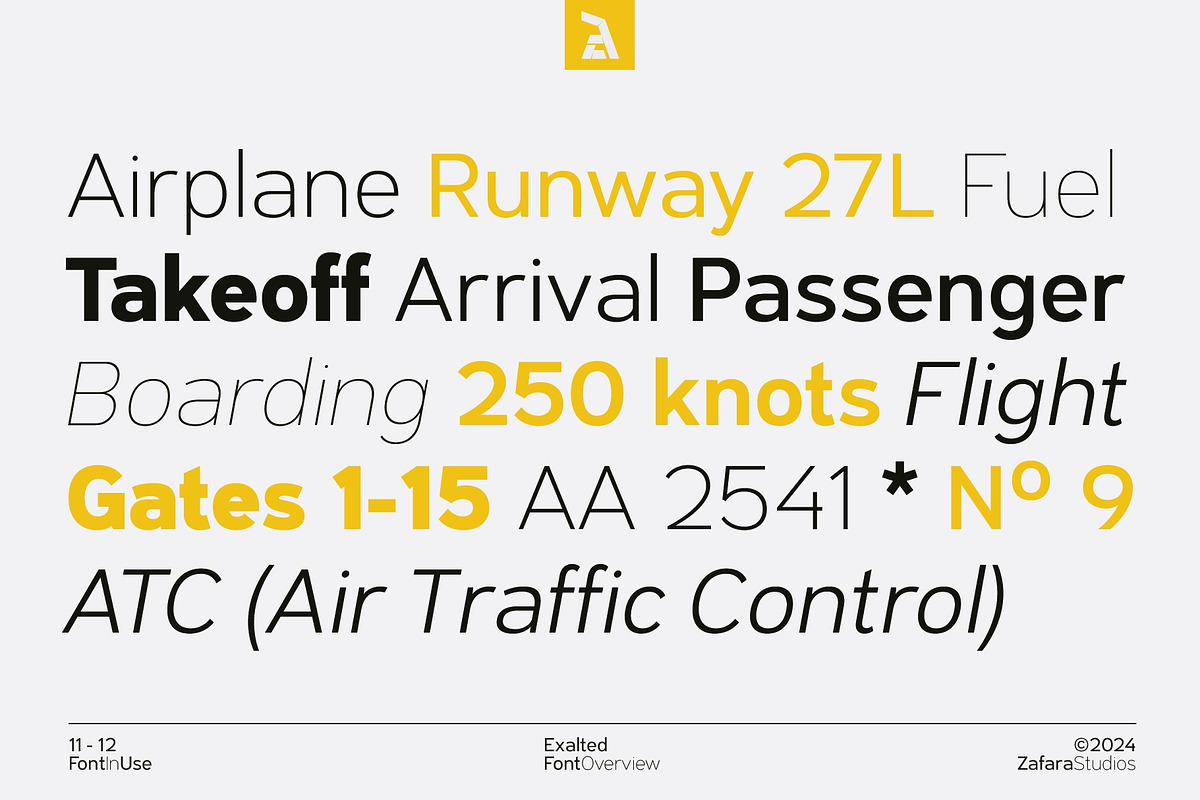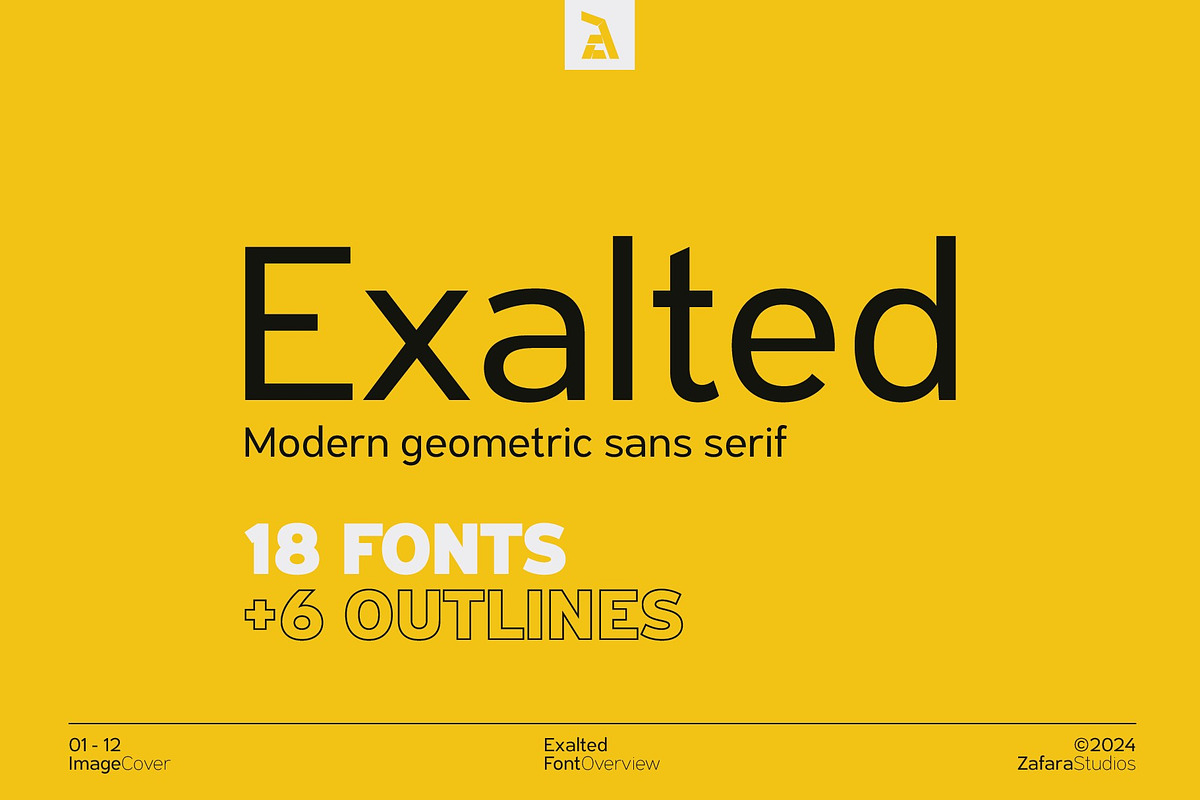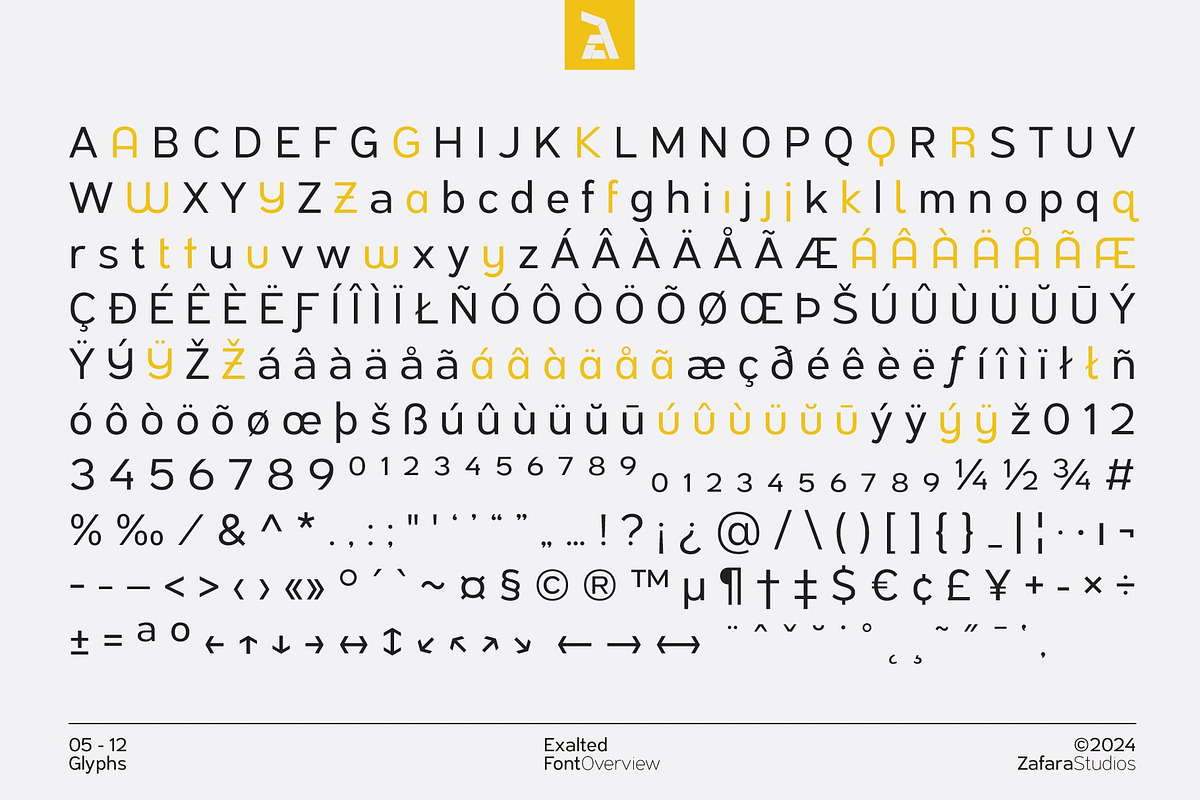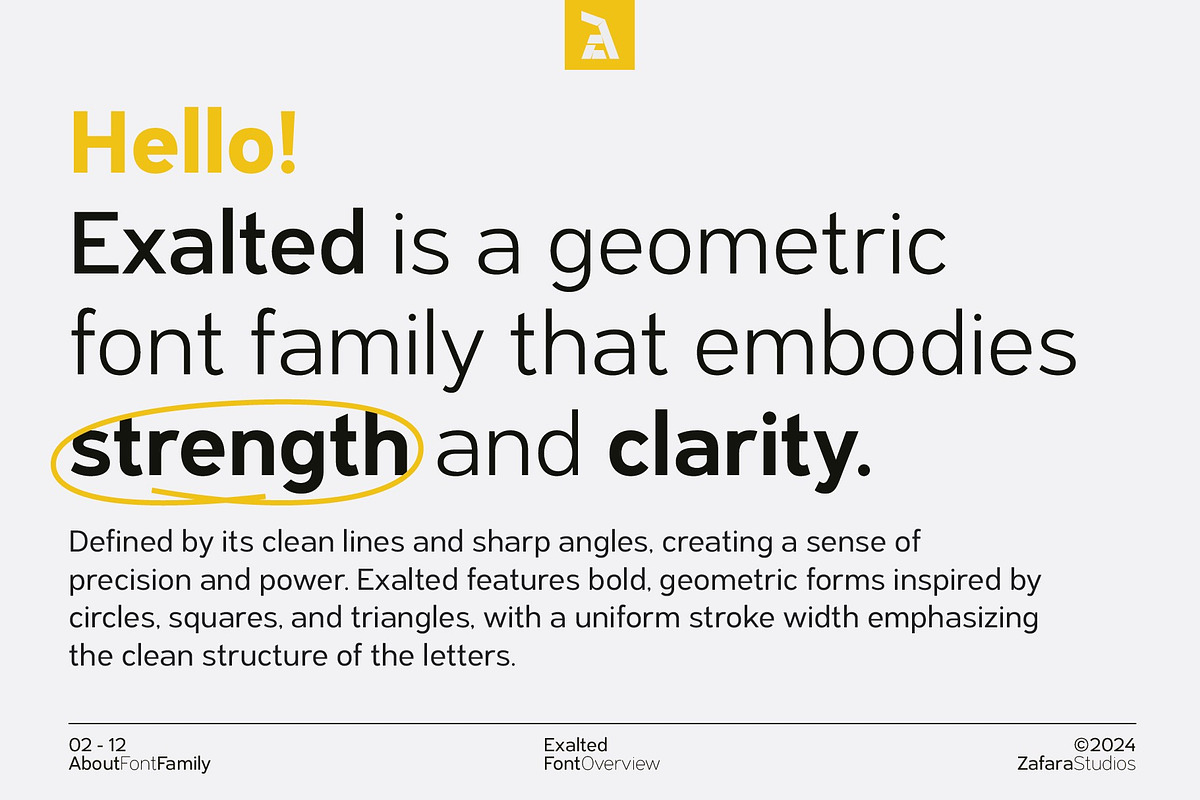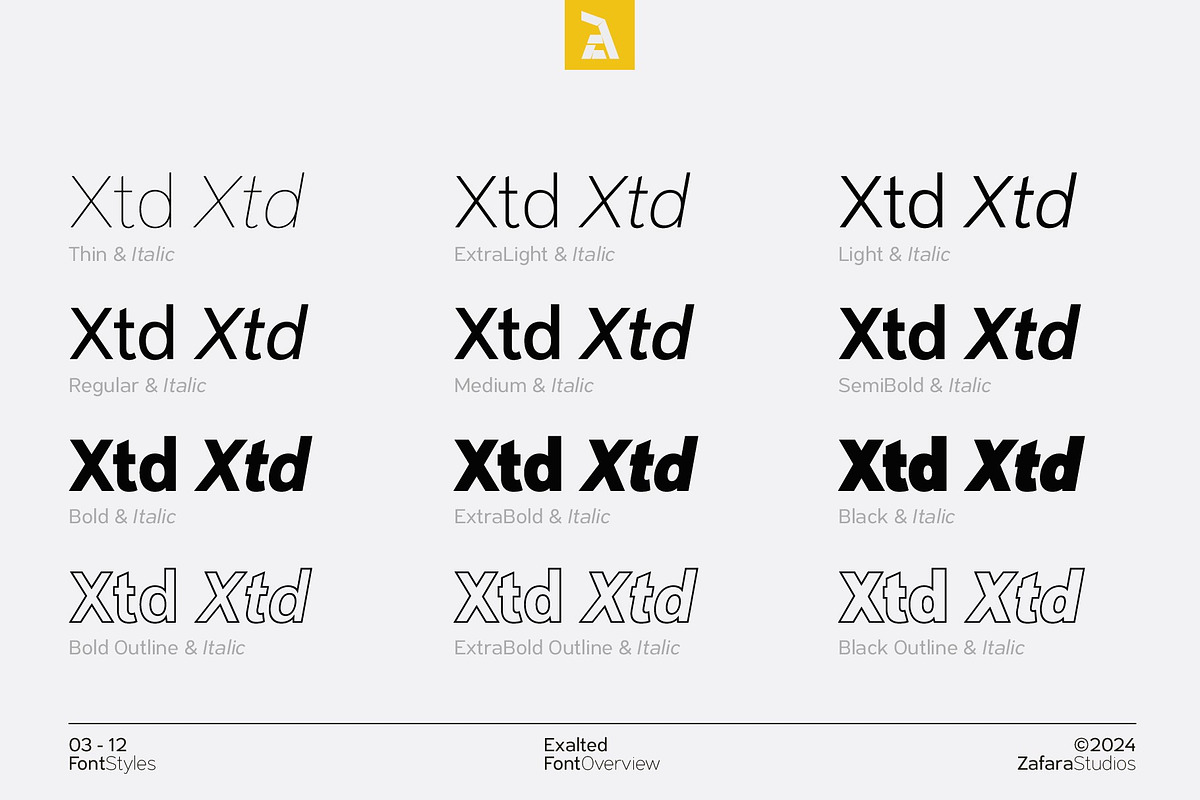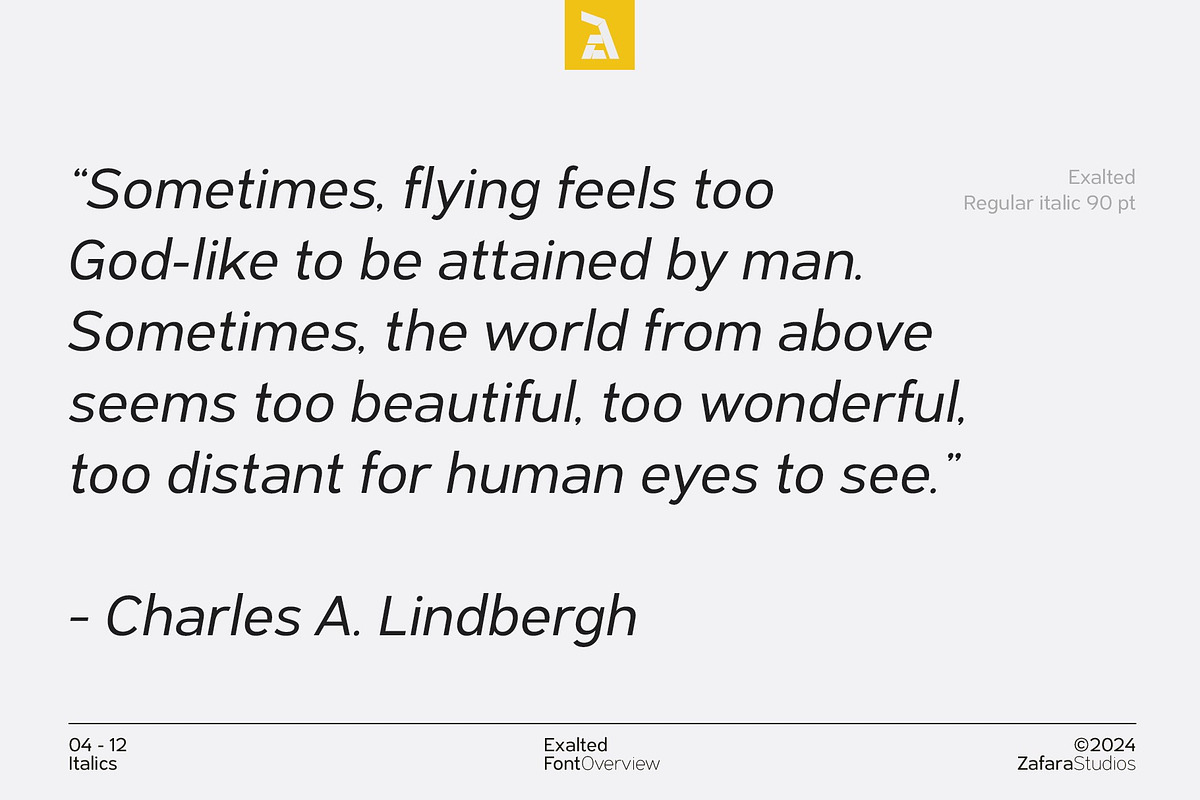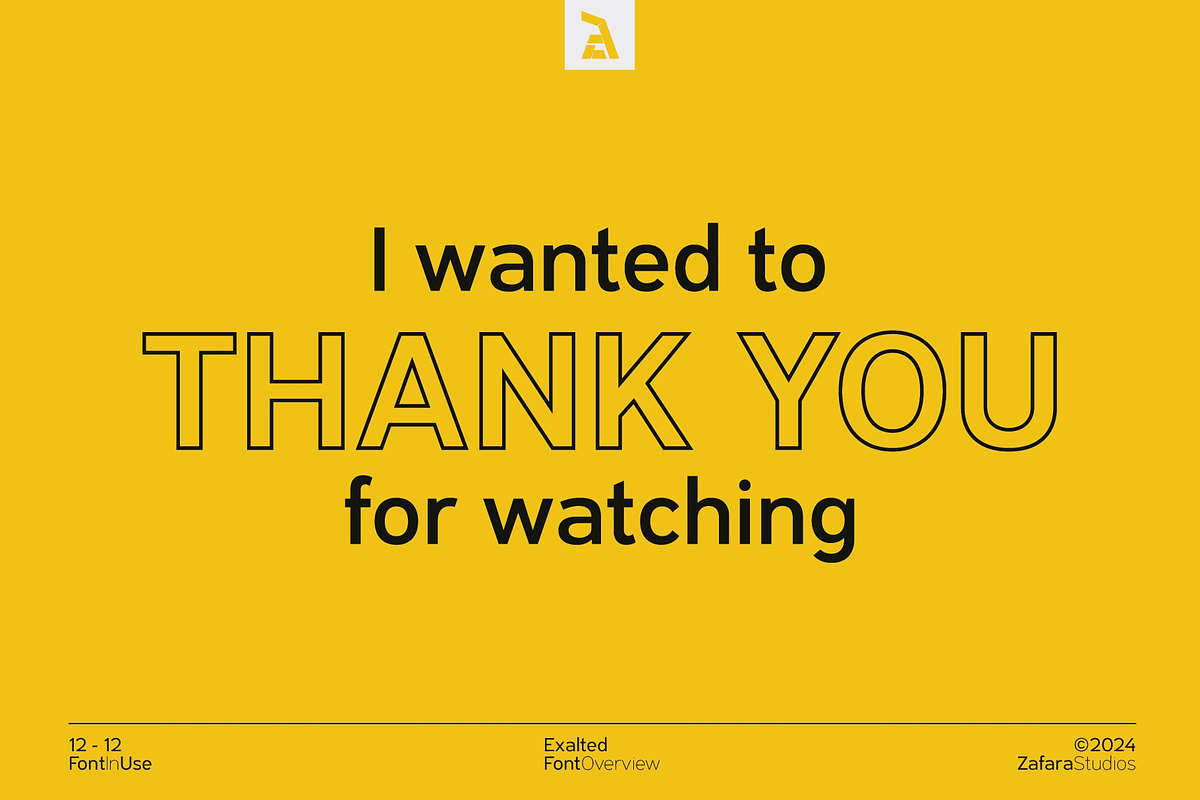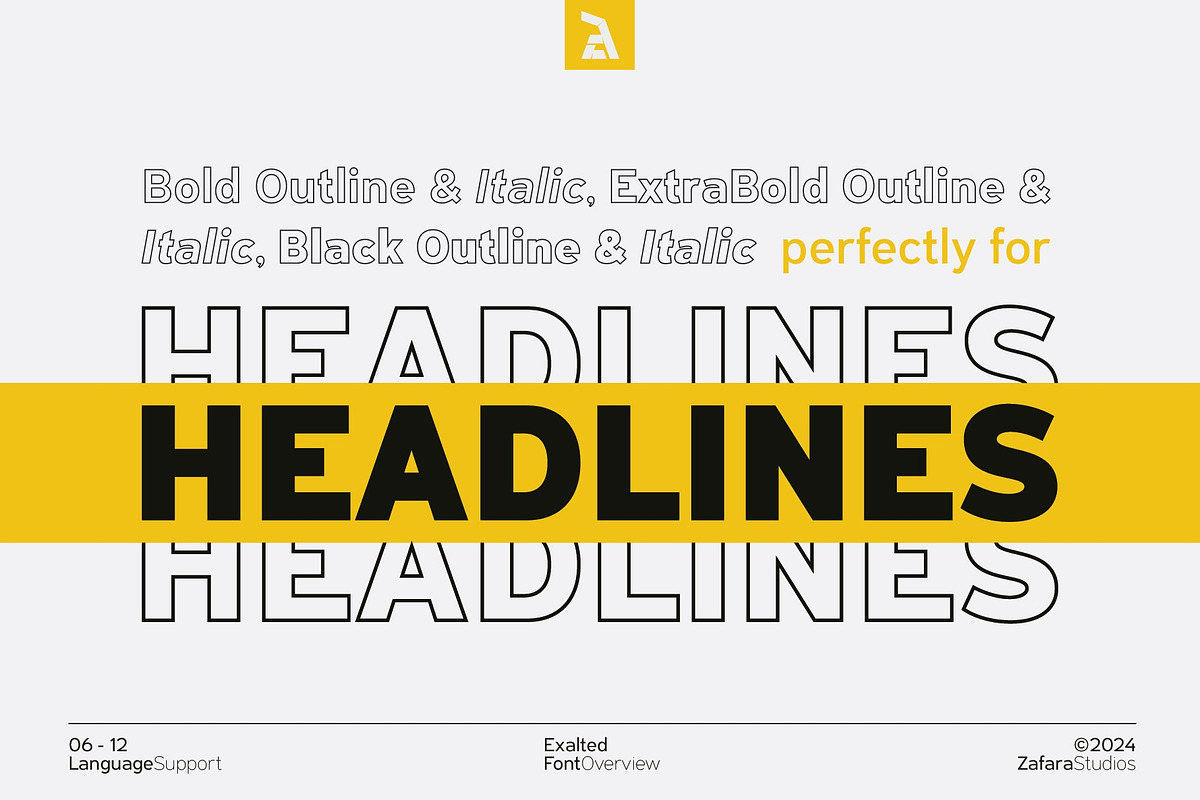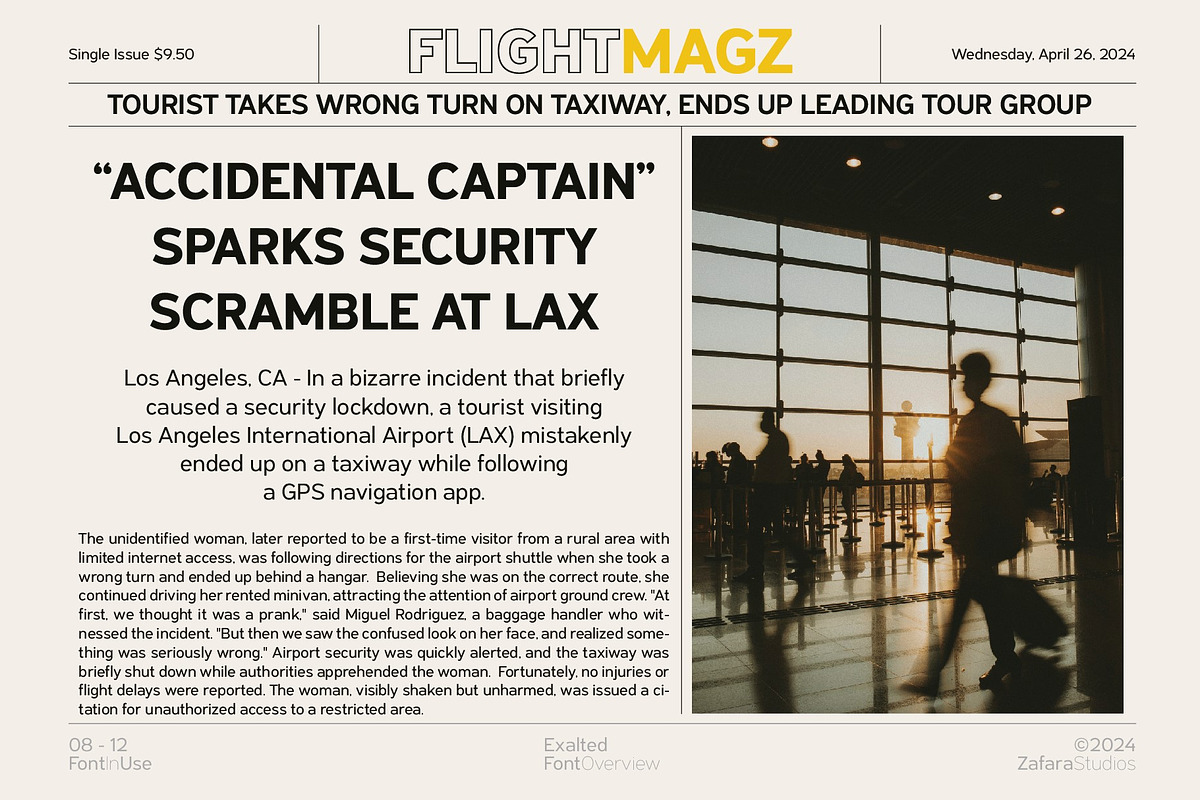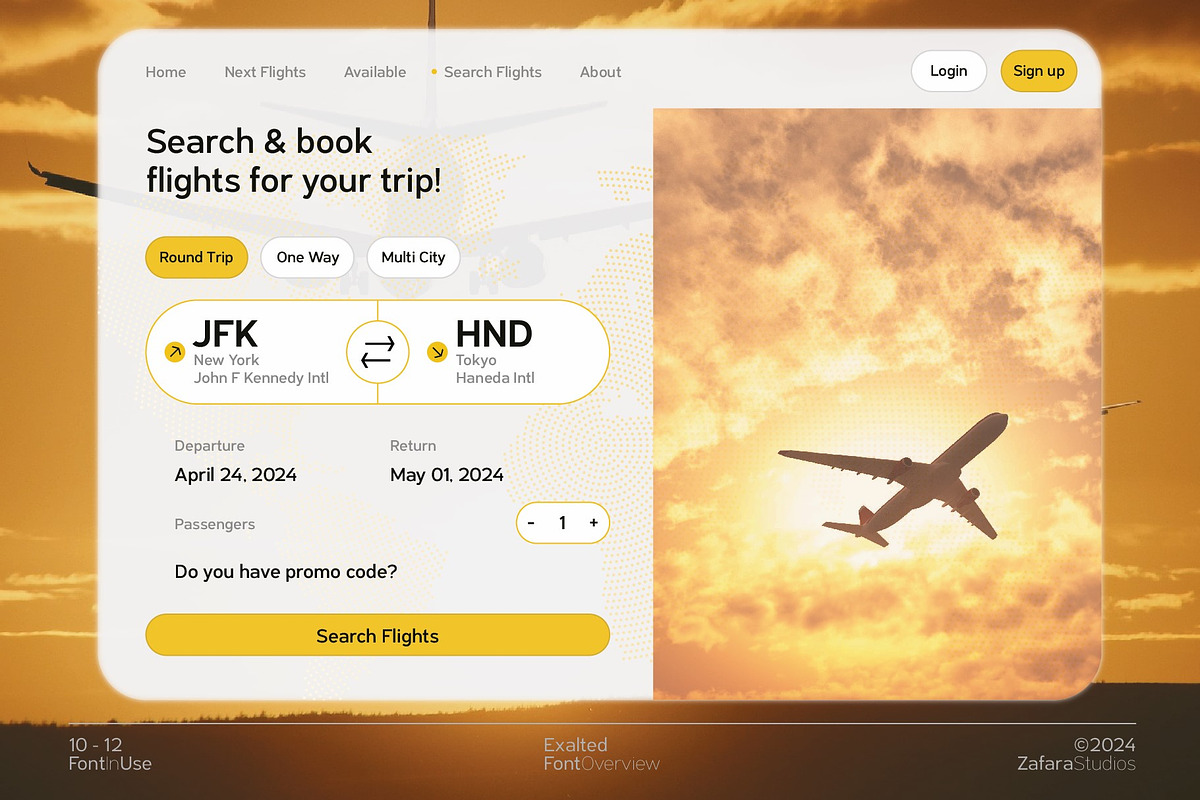
Exalted - Geometric sans serif
Exalted is a geometric font that embodies strength and clarity. Defined by its clean lines and sharp angles, creating a sense of precision and power. Exalted features bold, geometric forms inspired by circles, squares, and triangles, with a uniform stroke width emphasizing the clean structure of the letters.
Exalted can fulfill all types of needs such as editorial design, branding, graphic design, signage, logos, apps, websites, eBooks, print media such as flyers, brochures, magazines, and all kinds of purposes that are suitable for this font.
The details:
- 335 glyphs: uppercase, lowercase, multilingual, numbers, punctuation, superscript, inferiors, ordinals, fractions, stylistic alternates, currency
- 9 + 3 weights: thin, extralight, light, regular, medium, semibold, bold, extrabold, black, bold outline, extrabold outline, black outline
- 9 + 3 italics
- 25 languages: Afrikaans, Albanian, Basque, Catalan, Danish, Dutch, English, Estonian, Faroese, Filipino, Finnish, French, Galician, German, Icelandic, Indonesian, Irish, Italian, Malay, Norwegian Bokmål, Portuguese, Spanish, Swahili, Swedish, Zulu